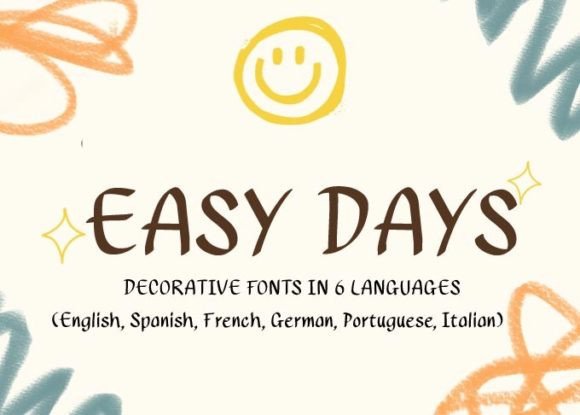
Welcome to the world of Easy Days Font, a captivating script font that possesses a charm like no other. Designed by the creative minds at RedCreations, Easy Days bursts onto the scene, ready to transform your creative visions into breathtaking realities. With its elegant curves and playful personality, this font is poised to become your go-to choice for adding a touch of whimsy and sophistication to your designs.
Unleash the power of Easy Days Font and watch your ideas come to life in a way that's sure to leave a lasting impression. Whether you're a seasoned designer or just starting out, this font is your passport to a world of limitless possibilities. Dive into the depths of your imagination and let Easy Days Font be your guide as you craft designs that captivate and inspire.
Easy Days Font isn't just another font; it's a gateway to a world of creativity and expression. Its versatility knows no bounds, making it the perfect companion for a myriad of projects. From enchanting wedding invitations to eye-catching social media posts, from stylish branding materials to heartwarming personal letters, Easy Days Font effortlessly adapts to your every need.
Experience the joy of crafting designs that resonate with your audience. Let Easy Days Font be your secret weapon as you create marketing materials that leave a lasting impression. Its unique charm will draw customers in, captivating their attention and leaving them eager to learn more about your brand.
But Easy Days Font isn't just about aesthetics; it's also incredibly user-friendly. With its intuitive design and extensive language support, this font makes the design process a breeze. Whether you're a seasoned pro or a complete beginner, Easy Days Font ensures that your creative journey is smooth and enjoyable.
So, what are you waiting for? Embrace the magic of Easy Days Font today and embark on a creative adventure that will leave you breathless. Let your imagination soar as you create designs that are uniquely yours, designs that will stand out from the crowd and make a lasting impact.
With Easy Days Font by your side, the possibilities are endless. Unleash your creativity and let the world witness the beauty that unfolds when inspiration meets artistry. Get ready to turn heads and capture hearts with every design you create.